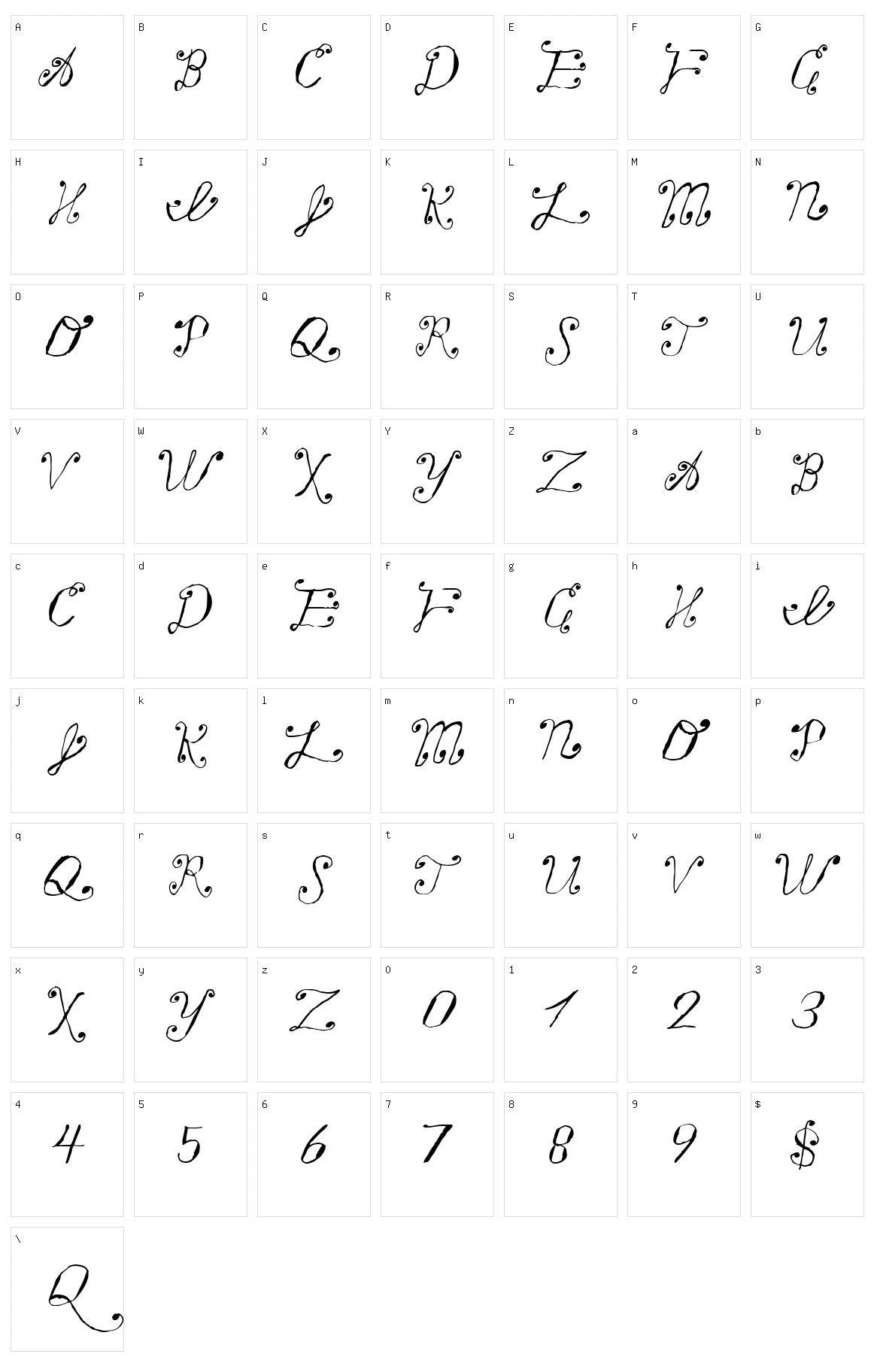
Making a List, Checking it Twice Font
The Making a List, Checking it Twice font is a display cursive swash font. It is based on the design of capital cursive letters. I designed this font using a pencil, Adobe Illustrator and FontLab Studio 5. For an alternate Q, type a backslash: \. This font comes with letters, numbers and currency symbols.